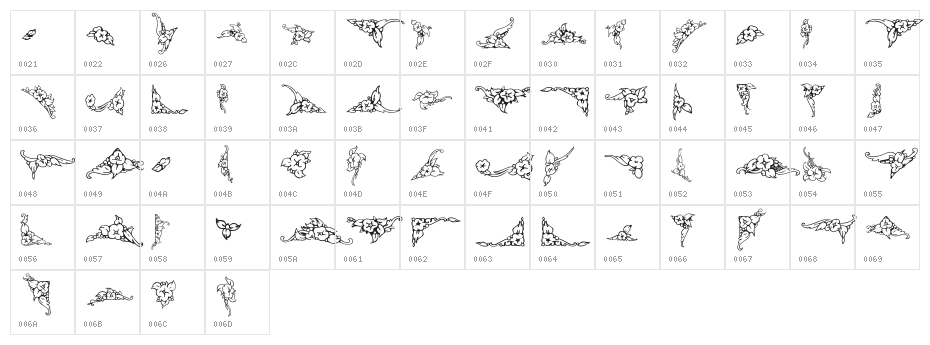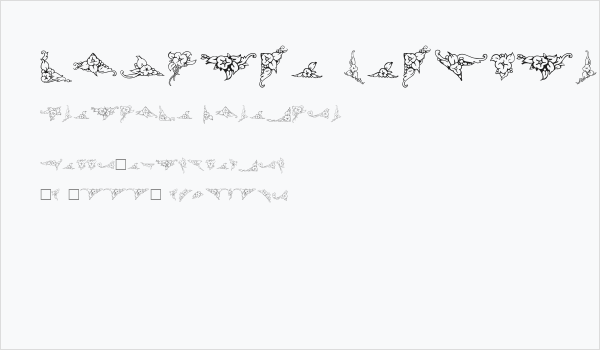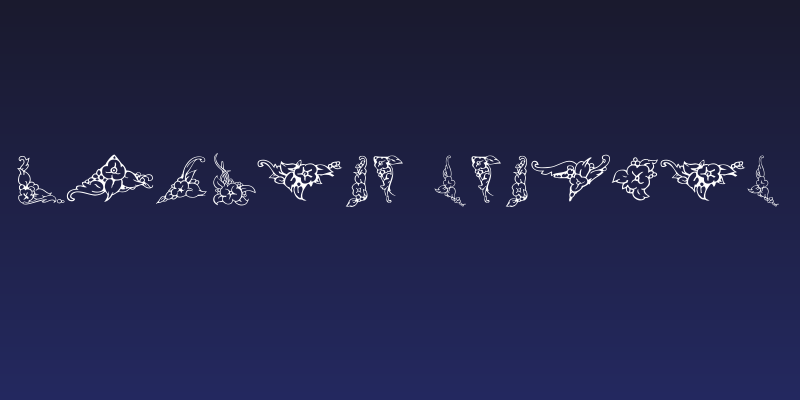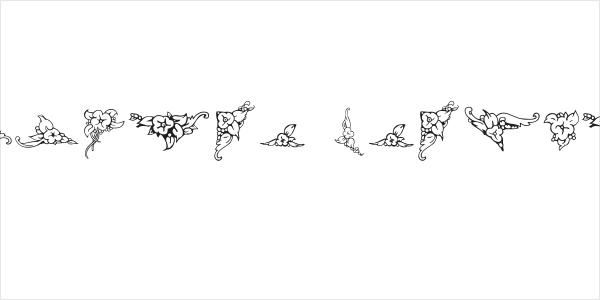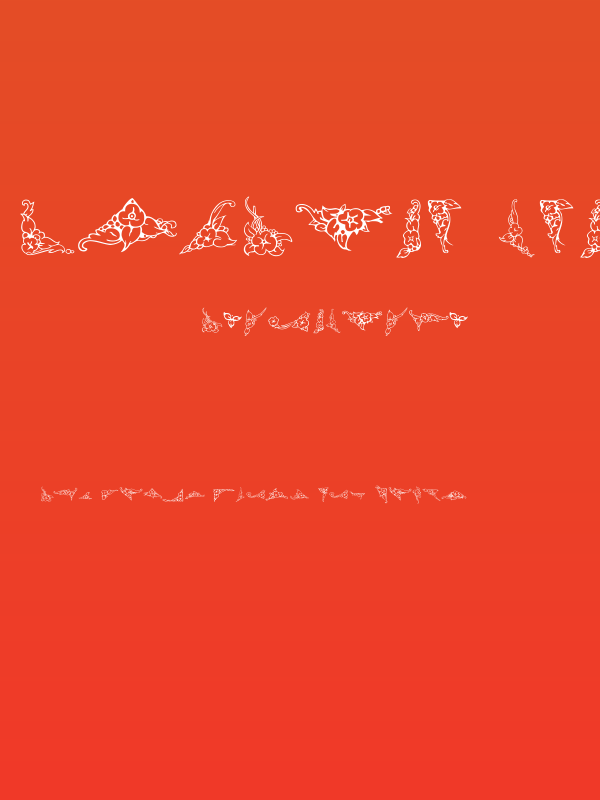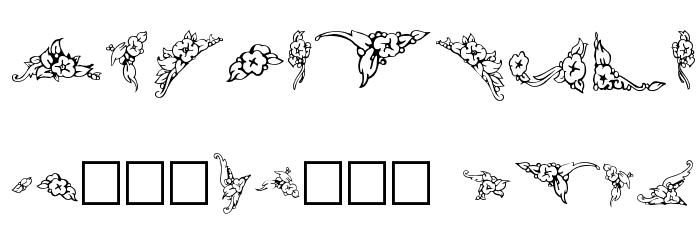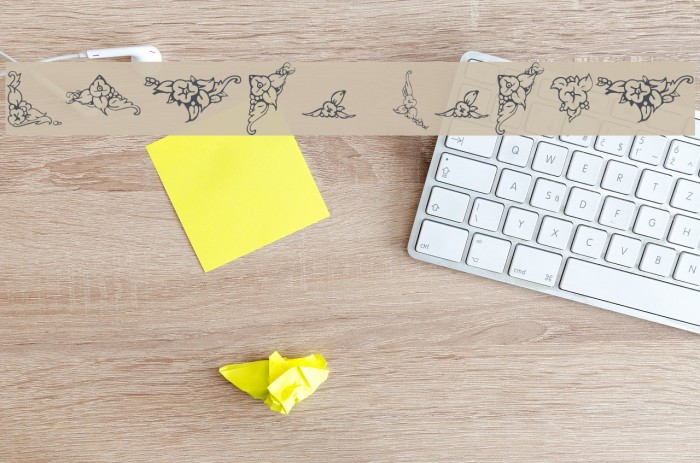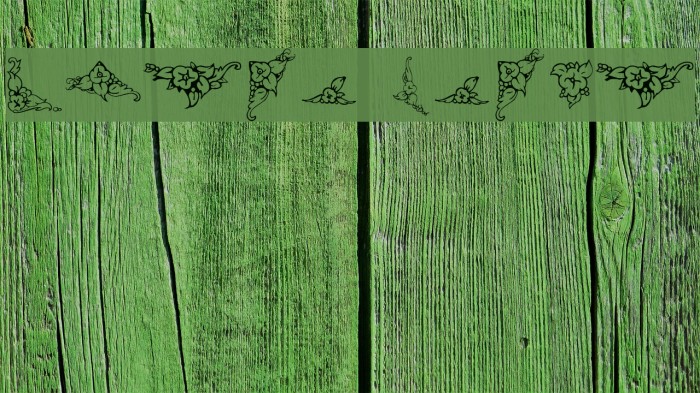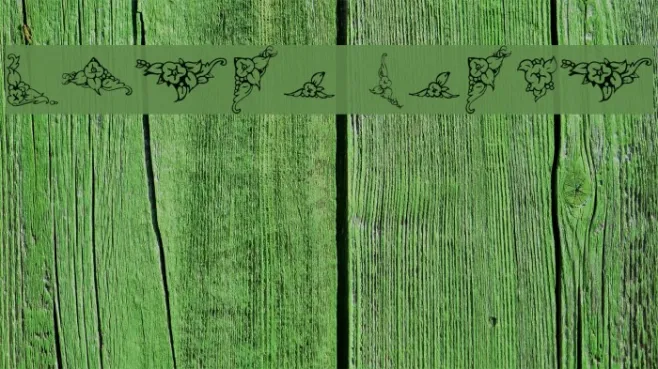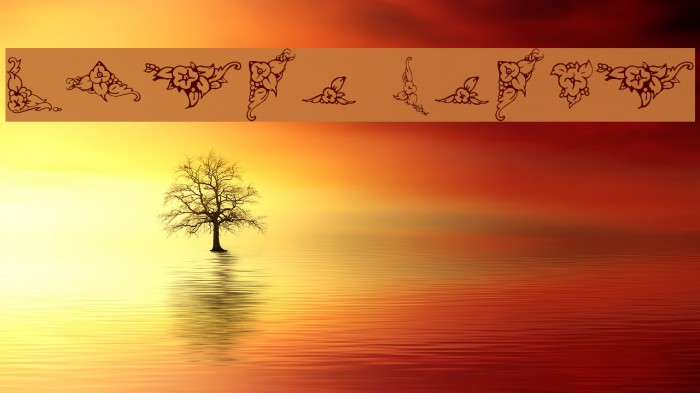
Vintage Regular Font
Vintage Regular Description
This is not a valid font. The image displays decorative floral elements rather than a standard set of alphanumeric characters. These elements are ornate and intricate, featuring floral motifs that are likely intended for decorative purposes rather than textual communication. The design is reminiscent of vintage or classical art styles, with a focus on embellishment and detail.
| Use Case | Decorative elements, not suitable for text. |
| Proposed Projects | These decorative elements could be used for creating borders, embellishments in graphic design projects, or as decorative accents in invitations and stationery. |